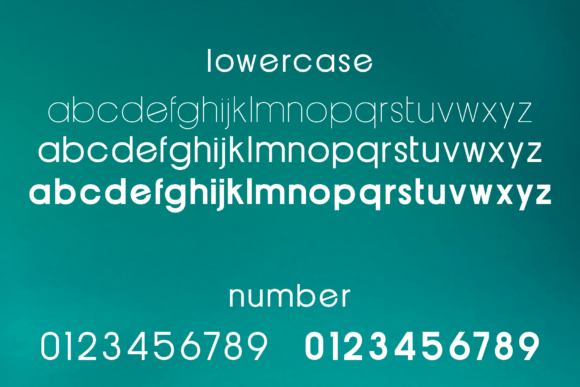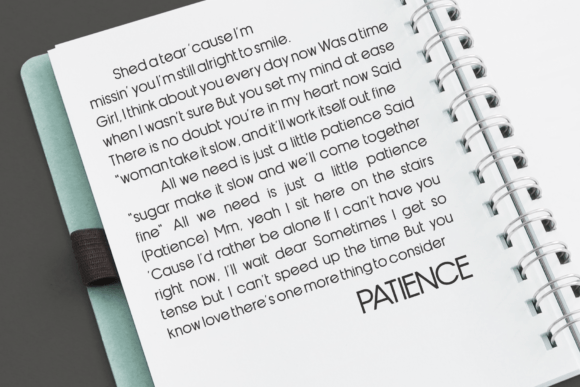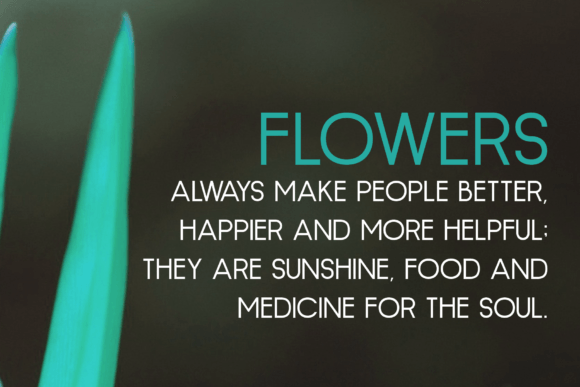
Manipulative Font
Manipulative is a brand new, elegant sans serif typeface with a powerful font family. This font features a very strong character that will make your design different and more attractive. This font has several alternatives built into it, perfect for creating logo designs, badges, web fonts, magazines, and more.
Upon closer inspection, you will notice the terminals of some of the characters are slightly turned inwards, this detail gives its distinctive and friendly personality.